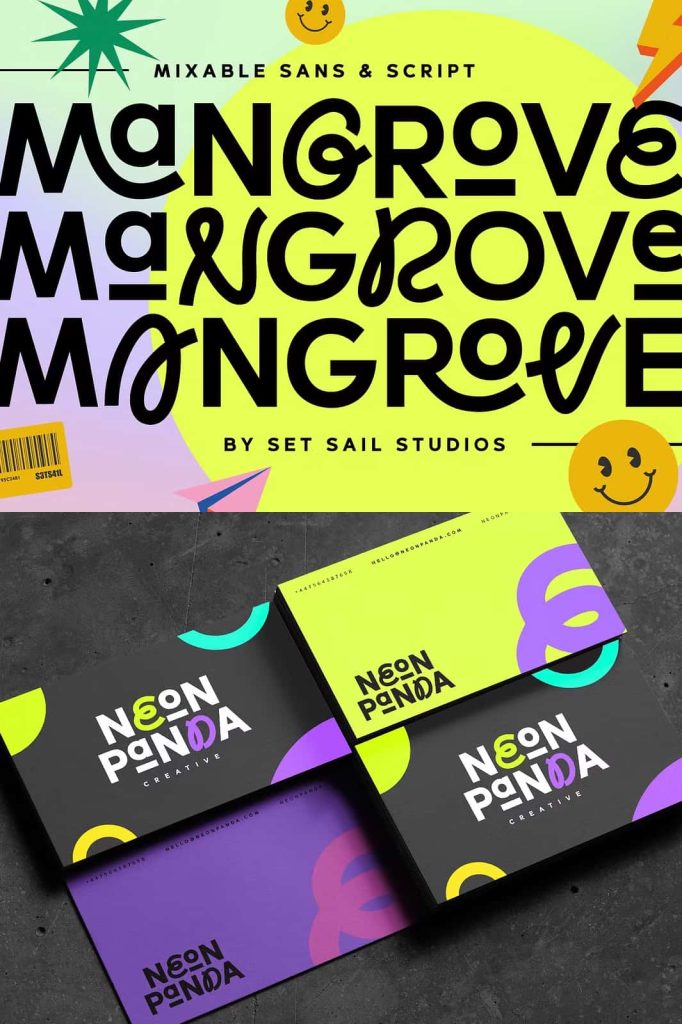
Mangrove Font Duo – Playful Typography with Endless Creative Possibilities
Mangrove Font Duo is a lively and expressive pairing of Sans and Script fonts that brings energy, balance, and character to your designs. Designed with precision and creativity, this dynamic duo blends a modern sans-serif typeface with a fluid script companion, making it the perfect combination for both professional and artistic projects. Whether you are designing logos, branding materials, invitations, or digital layouts, the Mangrove Font Duo provides a distinctive touch that makes your work stand out.
A Perfect Harmony of Sans and Script Styles
The Mangrove Font Duo delivers a perfectly balanced relationship between its Sans and Script styles. The Sans font offers clarity, strength, and versatility, while the Script font brings warmth, rhythm, and charm. Together, they create a cohesive look that feels both contemporary and timeless. Every curve and stroke has been thoughtfully designed to complement one another, resulting in typography that feels effortless yet engaging.
Each typeface can also stand proudly on its own. The Sans font provides clean and modern aesthetics for straightforward designs, while the Script version adds a personal, handcrafted touch. When paired, they form a visually compelling narrative that communicates creativity and sophistication. This balance of elegance and playfulness makes Mangrove ideal for projects that need to feel friendly yet professional.
Versatile Design Options for Every Creative Project
Mangrove is designed for designers who love flexibility and variety. Each font in the collection comes with three different weights, giving you a total of six fonts to explore. These options allow you to experiment freely—switch between bold and delicate weights, blend uppercase and lowercase letters, or mix Sans and Script to create a custom look that fits your design vision.
Try inserting a script letter in the middle of your Sans text for a bold, artistic contrast. Experiment with swooping ligatures or uplifting small-caps to give your typography a unique, dynamic flair. No matter your style—minimalist, editorial, or playful—Mangrove adapts beautifully, enhancing both legibility and visual appeal across all mediums.
Features That Inspire Creativity
- Two Complementary Typefaces – Includes Sans and Script fonts designed to work perfectly together or individually.
- Six Total Fonts – Each typeface includes three distinct weights for maximum flexibility.
- Dynamic Ligatures and Small-Caps – Add character and variety to your text layouts.
- Uppercase and Lowercase Options – Offers complete control over tone and emphasis.
- Versatile for Any Design – Perfect for branding, packaging, posters, websites, and more.
Perfect for Branding, Editorial, and Digital Design
The Mangrove Font Duo is more than just a set of fonts—it’s a creative tool that empowers designers to express personality and emotion. Its versatility makes it ideal for a wide range of applications, including logos, business cards, social media graphics, wedding invitations, packaging design, and editorial layouts. The Sans version delivers structure and professionalism, while the Script version infuses warmth and artistry, ensuring that your typography always feels well-balanced and engaging.
Each character in the Mangrove Font Duo has been crafted with care to maintain visual harmony and high readability. Whether you’re working with large headlines or subtle body text, the typefaces retain their clarity and charm. This balance of precision and creativity ensures your projects not only look stunning but also communicate effectively.
Why Designers Love the Mangrove Font Duo
Designers are drawn to the Mangrove Font Duo because it invites experimentation and rewards creativity. The pairing feels natural, and the wide range of stylistic options gives every project a fresh and distinctive feel. From modern digital campaigns to timeless print materials, Mangrove adds the perfect mix of personality and polish. It’s designed for creators who value flexibility without sacrificing aesthetics.
Conclusion: Bring Your Typography to Life with Mangrove
Mangrove Font Duo is the ultimate combination of playfulness and professionalism. Its Sans and Script pairing offers designers a toolkit filled with expressive options for any creative challenge. Whether you want bold headlines, elegant logos, or stylish editorial designs, Mangrove brings your words to life with energy and sophistication. With six fonts, dynamic ligatures, and endless creative possibilities, Mangrove is ready to transform your typography into a statement of modern design excellence.